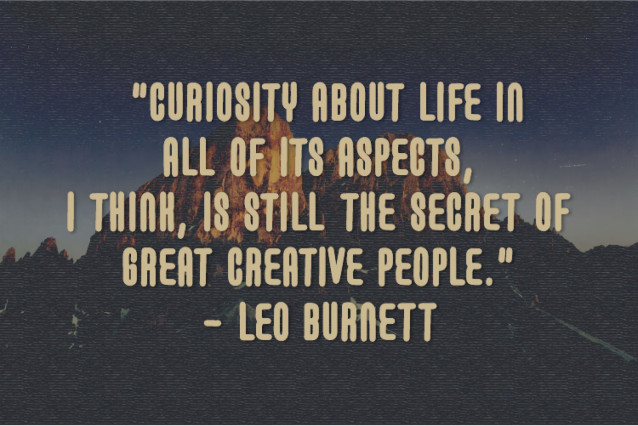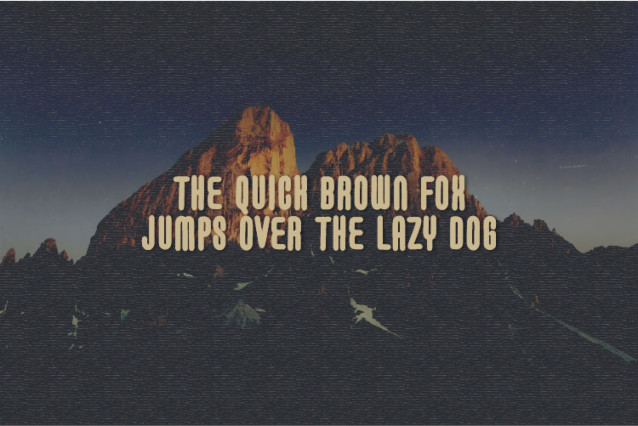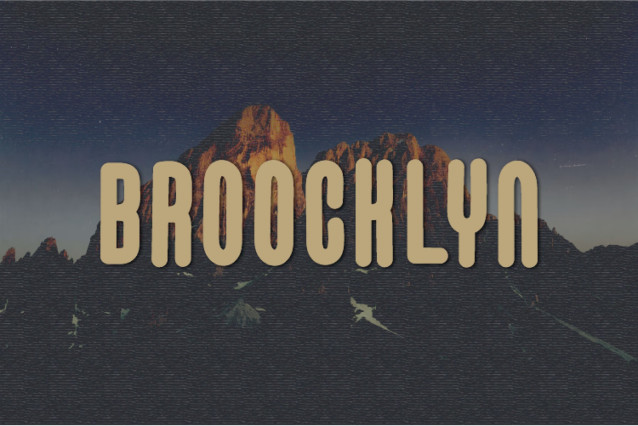
Broocklyn Font
Broocklyn is a fun and whimsical display font. Whatever the topic, this font will be a wonderful asset to your font library, as it has the potential to enhance any creation.